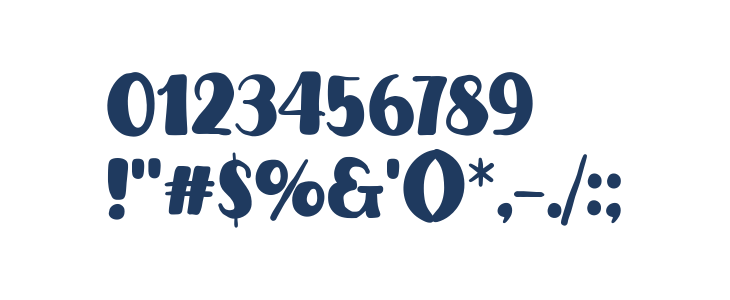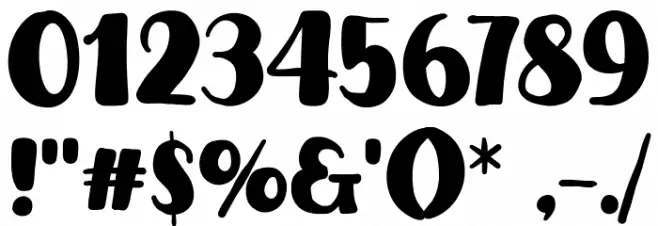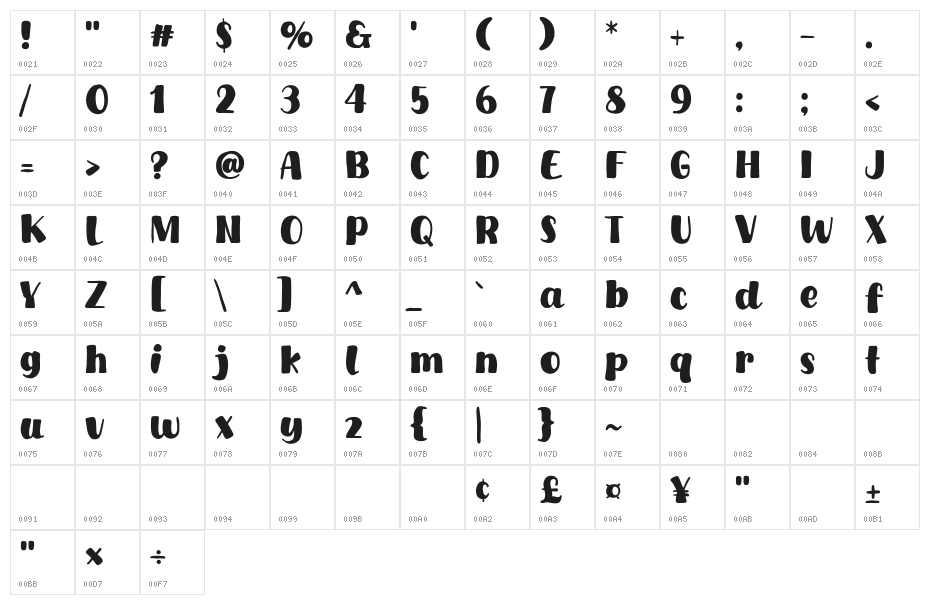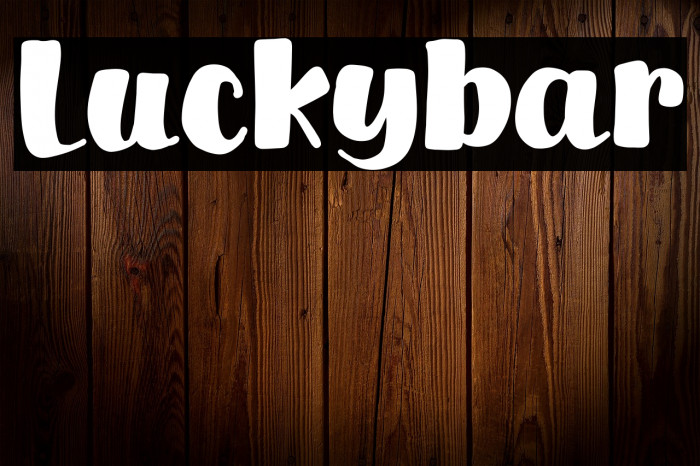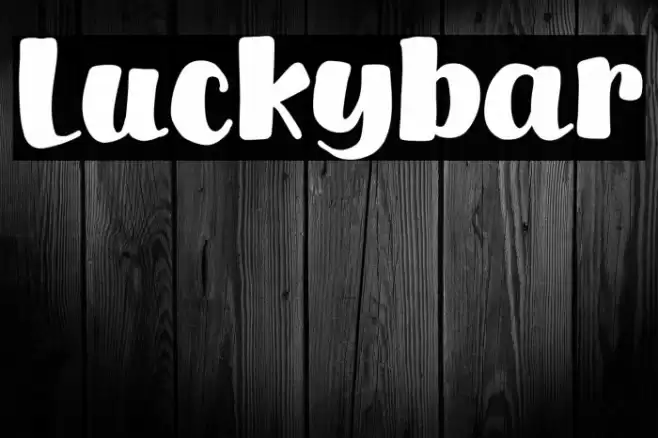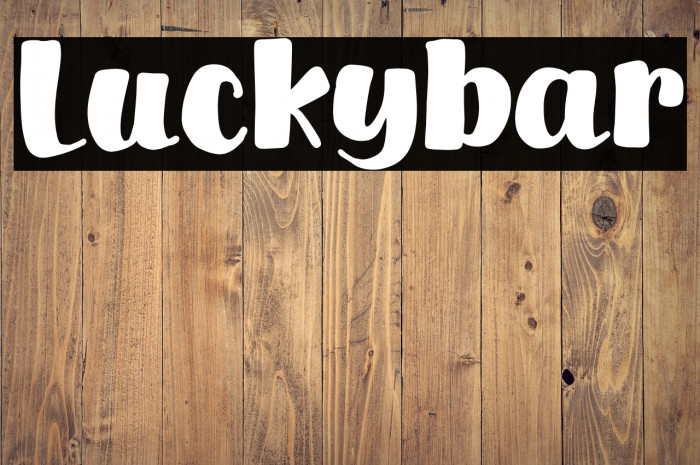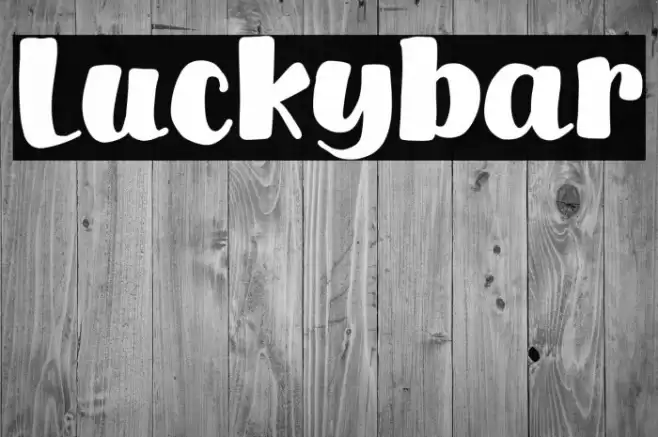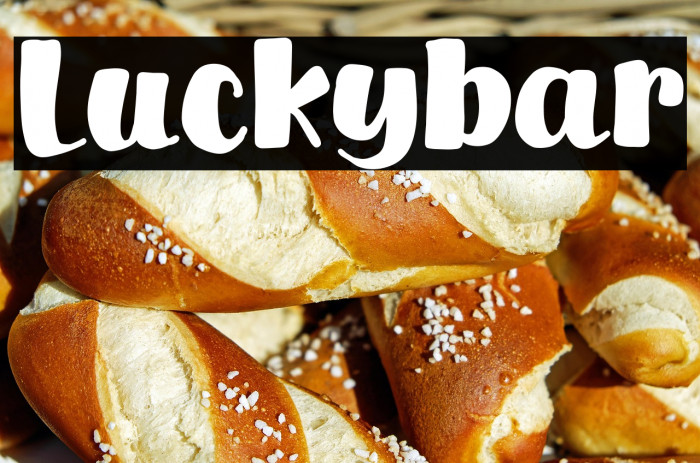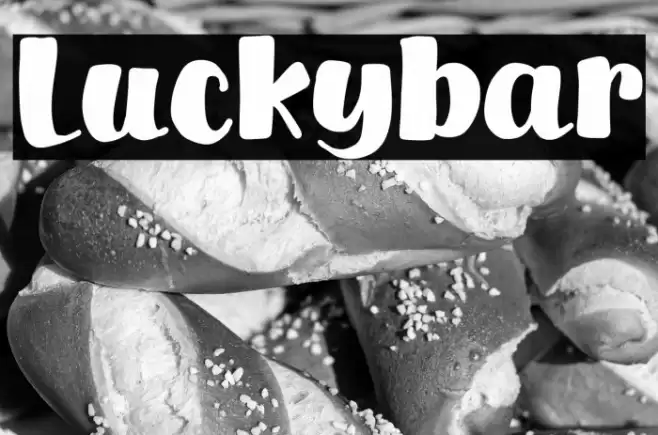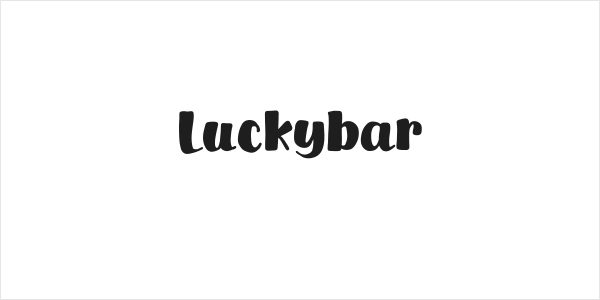
Luckybar Font
Luckybar Description
This font features a bold and playful design with a handwritten style that exudes a sense of fun and creativity. The characters are thick and rounded, with a slightly uneven baseline that adds to its casual and informal appearance. The uppercase and lowercase letters maintain a consistent style, while the numerals and special characters complement the overall look. The font's boldness makes it stand out, making it suitable for eye-catching designs. Its unique character shapes and whimsical flair make it ideal for projects that require a touch of personality and charm.